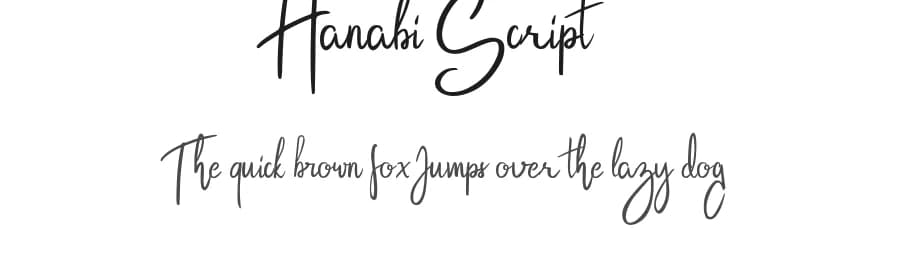
About Hanabi Script Font
Hanabi Script is a script & handwritten font designed by Moonstone Co. It includes 117 glyphs, a regular weight, TTF (TrueType) format, and 104 languages. Hanabi Script is free to download; check the license details on this page before commercial use. Script & handwritten fonts like Hanabi Script work best for wedding invitations, greeting cards, signatures, and elegant branding.
Hanabi Script Font is a script font that shines as a display or heading face. Pair it with a clean sans-serif or serif font for body text β the contrast creates a clear hierarchy while the two styles stay balanced and easy to read.
Hanabi Script Font
by Moonstone Co
Hanabi Script Font is a script handwritten typeface by Moonstone Co, ideal for logos, invitations, branding, and creative projects.